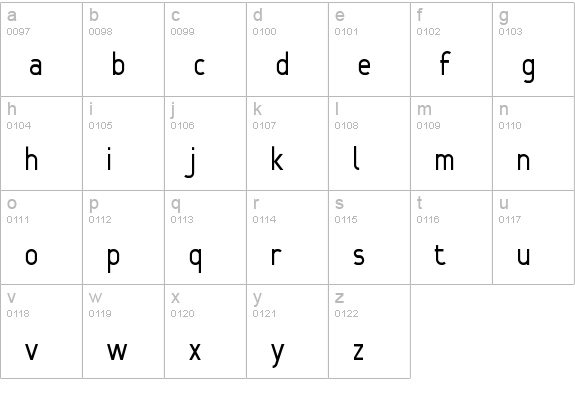
Min-One Font Details
Min-One font is a modern and sleek typeface that combines elegance with a touch of minimalism. With clean lines and a contemporary feel, this font is perfect for a wide range of design projects. Whether you're creating a logo, designing a website, or working on a print layout, Min-One font will add a touch of sophistication to your work. What makes Min-One font even more appealing is that it is available for free download at FontsMarket.com. This means that you can easily access this stylish font without any cost, making it a great option for both personal and commercial projects. Don't miss out on the opportunity to enhance your designs with the versatile and chic Min-One font. Download it today and elevate your creative projects to the next level.